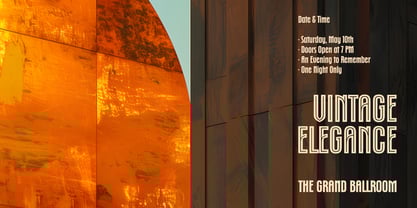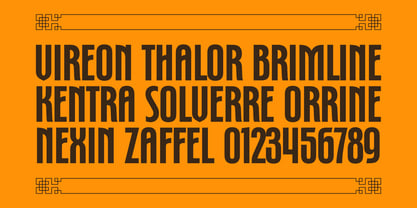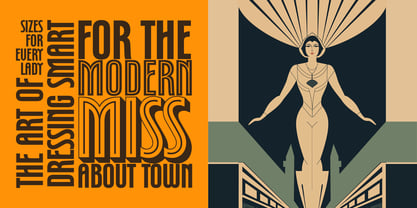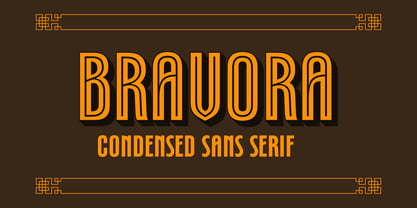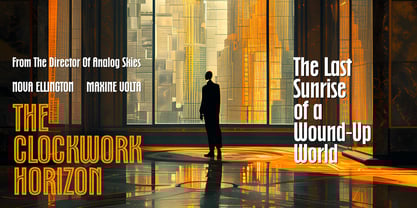
Bravora
by Hazztype
Bravora is a bold display typeface inspired by the timeless elegance of Art Deco design. With its tall, structured letterforms and subtly curved lines, Bravora brings a sense of modern sophistication and vintage charm.
The family includes three versatile styles:
• Bravora Bold – Strong and impactful for headlines and logos.
• Bravora Inline – A refined cut-in style for a classic ornamental feel.
• Bravora 3D – Adds dimensional flair and retro-futuristic drama.
Perfect for branding, luxury packaging, editorial titles, or any project that needs a bold yet refined typographic presence.
Designers: Muhammad Hastian
Foundry: Hazztype